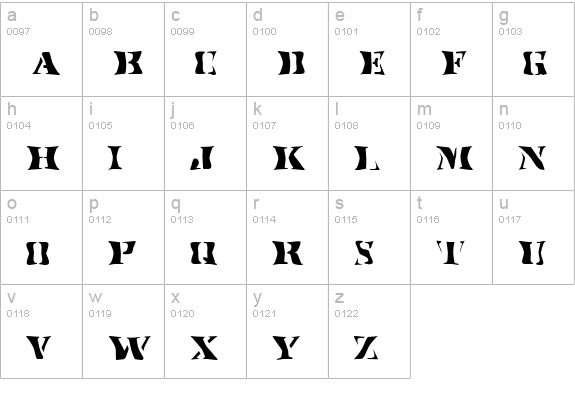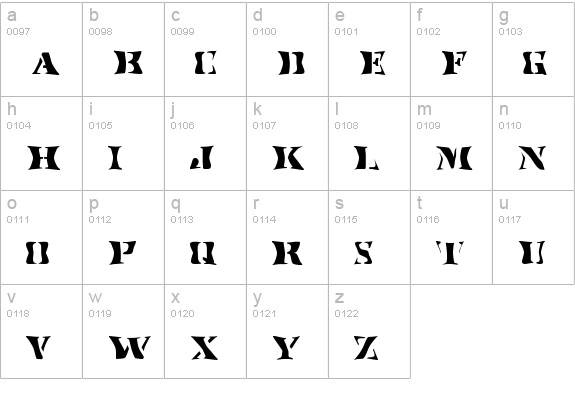
SundanceKid Font Details
SundanceKid font is a playful and whimsical typeface that exudes a sense of fun and creativity. With its unique curves and stylish letterforms, this font is perfect for adding a touch of charm to any design project. Whether you're creating invitations, posters, or branding materials, SundanceKid font is sure to make a statement. The best part? SundanceKid font is completely free to download at FontsMarket.com! So go ahead and unleash your creativity with this delightful font that will bring a smile to your audience's face.